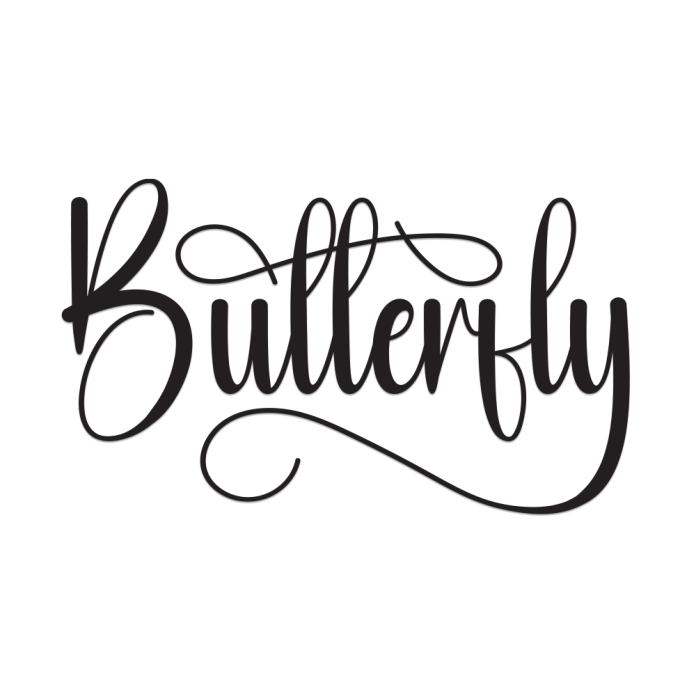
Butterfly is a beautifully flowing handwritten font that brings a delicate and whimsical charm to any design. Its graceful curves and smooth strokes evoke a sense of freedom and natural beauty.
Perfect for wedding invitations, nature-inspired branding, greeting cards, feminine logos, and inspirational quotes, Butterfly adds a soft and elegant touch to your creative work.
Stylish Handwriting Look
Elegant and Light Feel
Let your designs flutter with elegance using the timeless beauty of Butterfly.